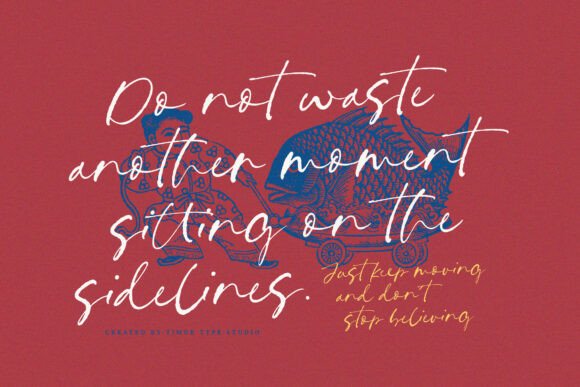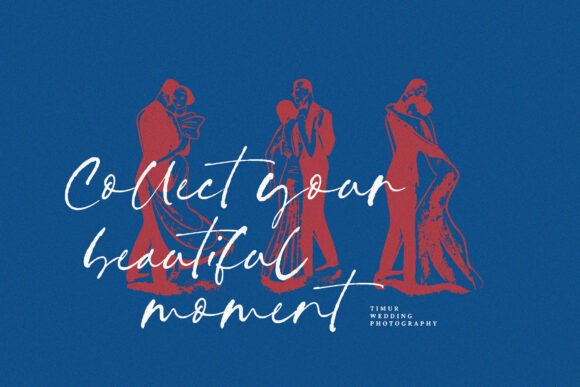
Belisma Kimono Font
Belisma Kimono is a playful handwritten signature font with a whimsical charm. Its rough, organic strokes, complemented by alternate ligatures that add variety and flair. Perfect for creative branding, invitations, or artistic projects seeking a touch of elegance with a free-spirited twist.